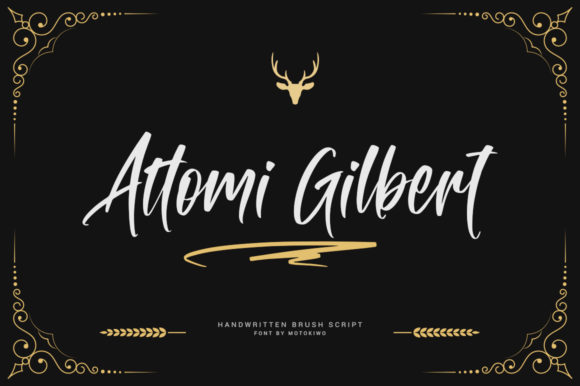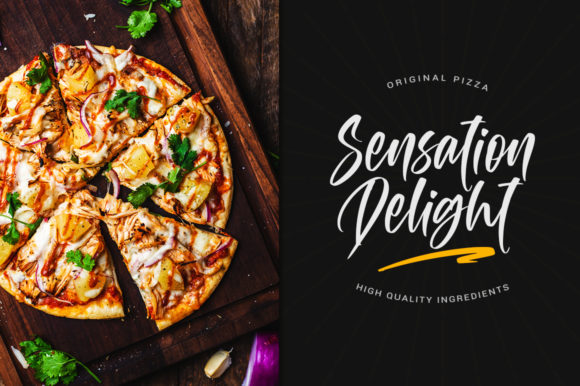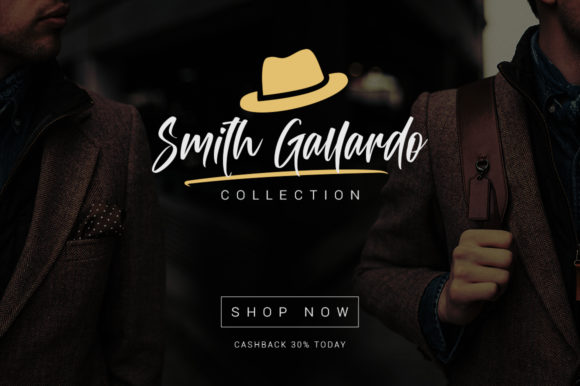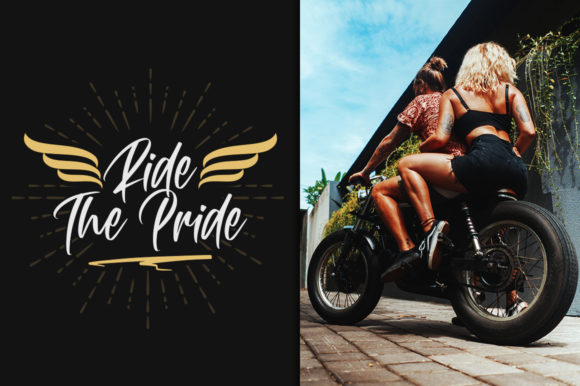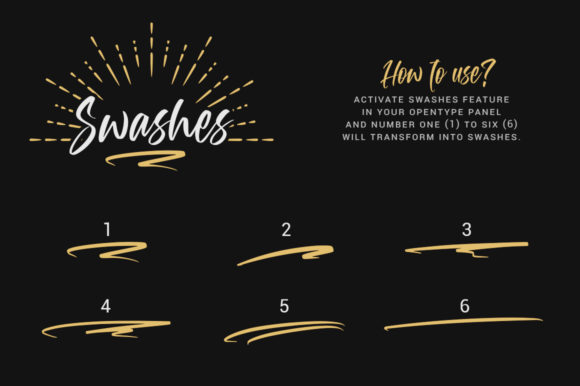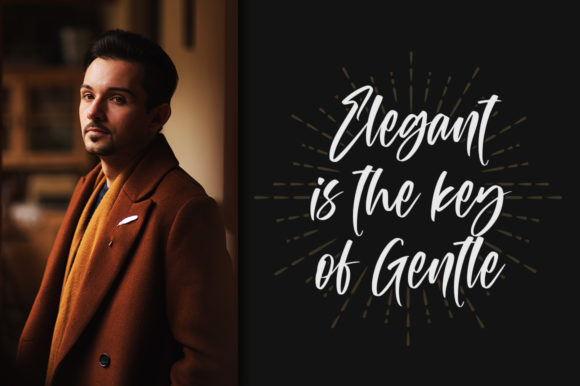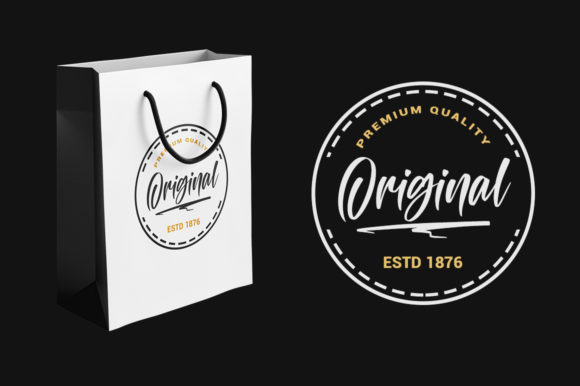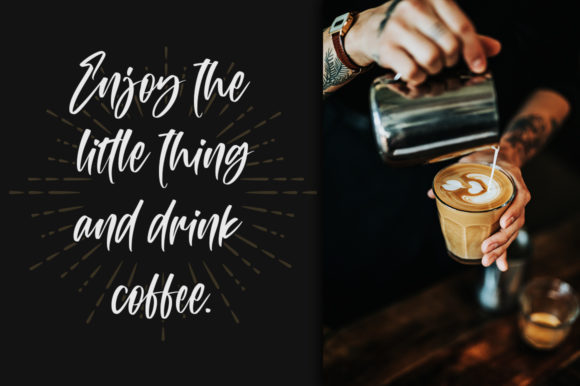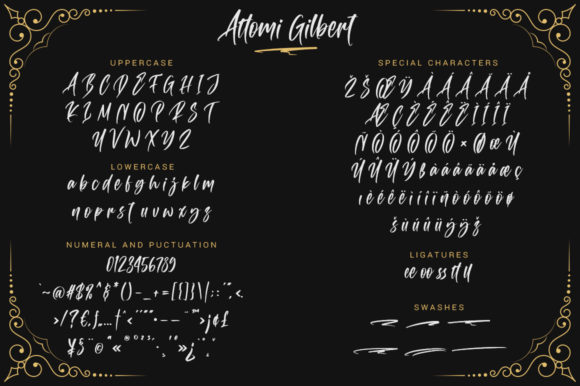
Attomi Gilbert Font
About Attomi Gilbert Font
Attomi Gilbert is an organic and natural script font that feels raw and authentic. Use it to add that personal charm to any design project in an instant.